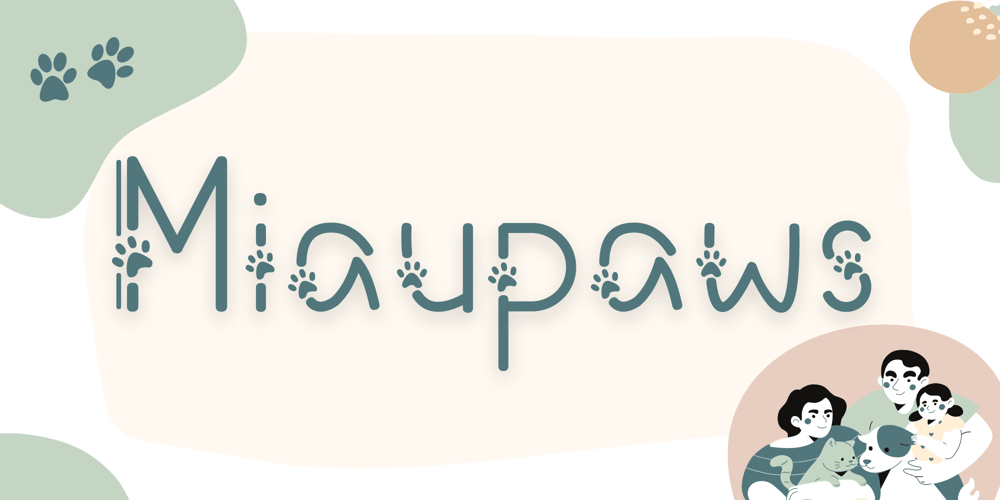
Miaupaws
Miaupaws font
Miaupaws Font Family was designed by Nur Aiysah Amalia and published by Aisyah. Miaupaws contains 1 styles and family package options. Meows Display Font is a fun and playful font that is perfect for a variety of design projects. This font features a unique paw print in place of a traditional dot over the letter “i” giving it a playful and whimsical feel.The Meows Display Font is a bold and attention-grabbing font that is sure to make a statement in any design. The paw print feature gives the font a touch of personality and quirkiness, making it ideal for use in children’s books, animal-themed designs, and other creative projects.The Meows Display Font is designed to be used as a display font, meaning it is best used in larger sizes such as headlines, titles, and logos. The font includes a full set of upper and lowercase letters, as well as numbers and punctuation, making it a versatile and practical choice for designers.Overall, Meows Display Font is a fun and unique font that brings a touch of playfulness and quirkiness to any design project. Whether you’re creating a children’s book, designing a pet-themed product, or working on a logo, this font is sure to make your project stand out.